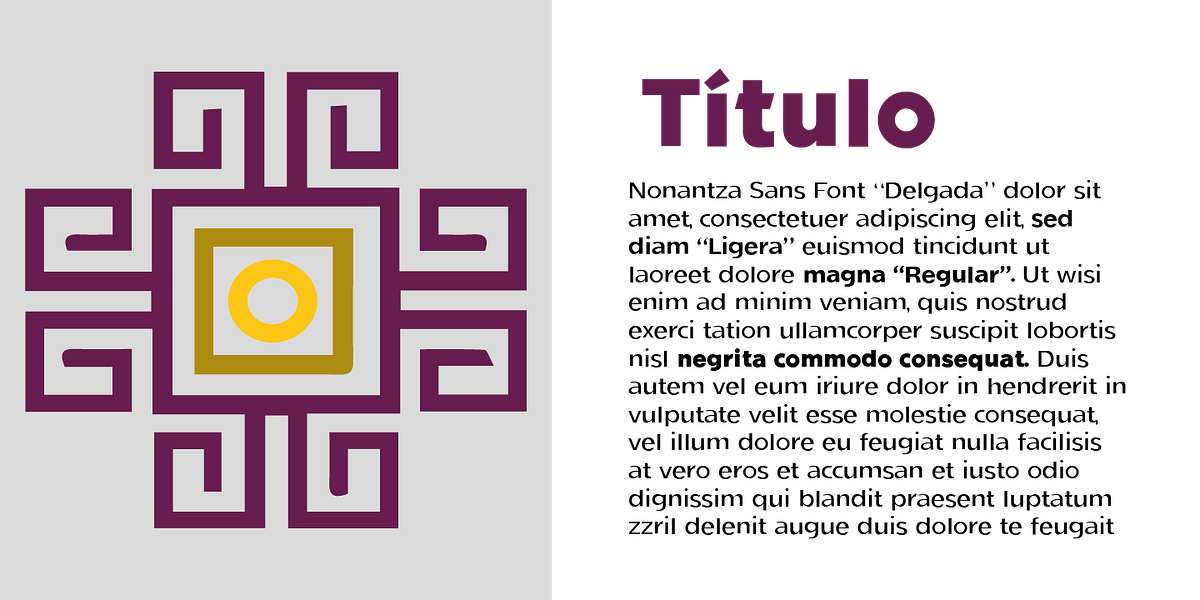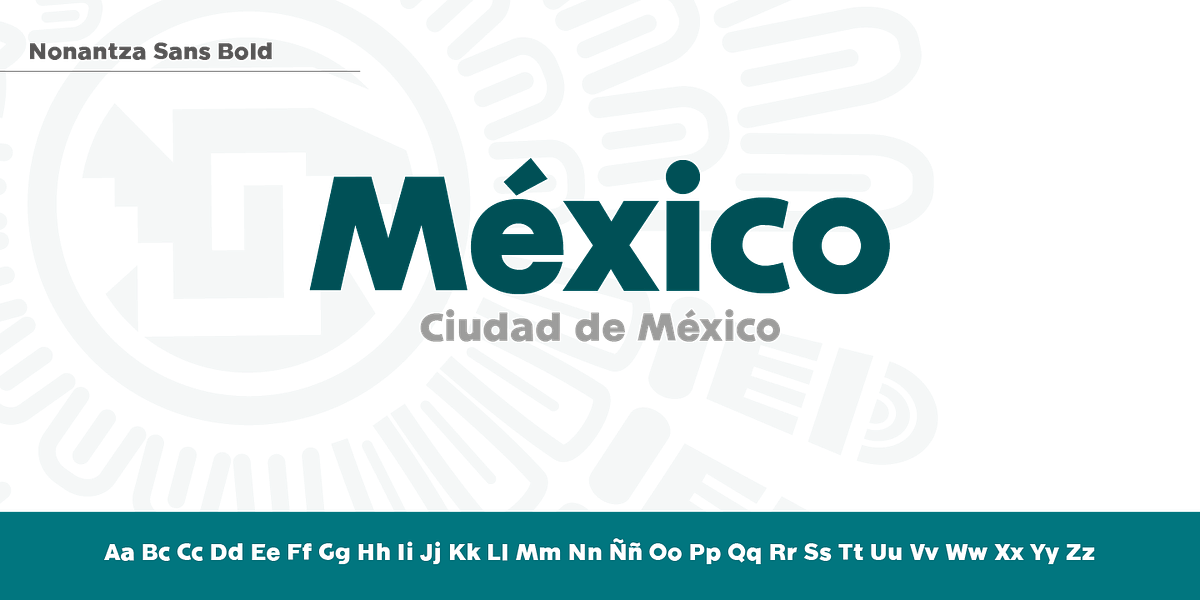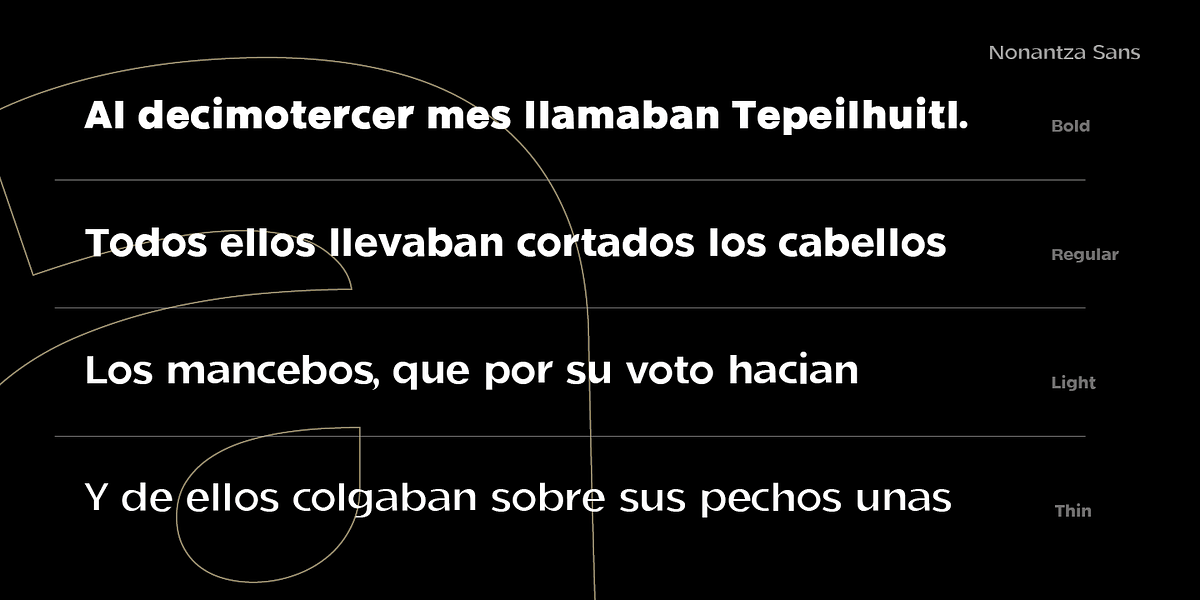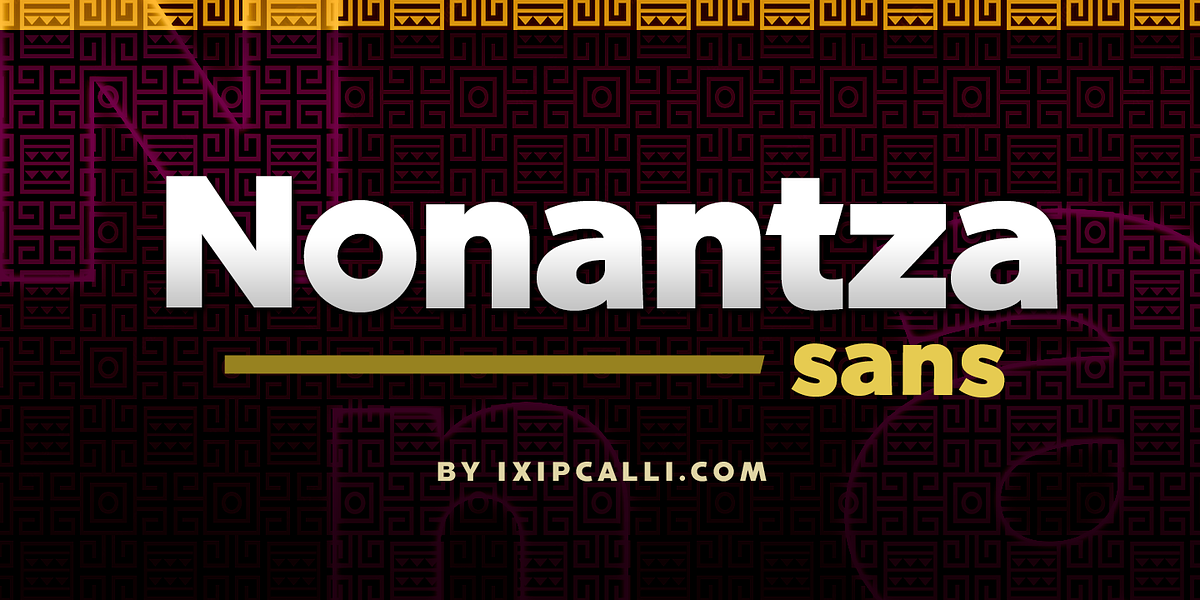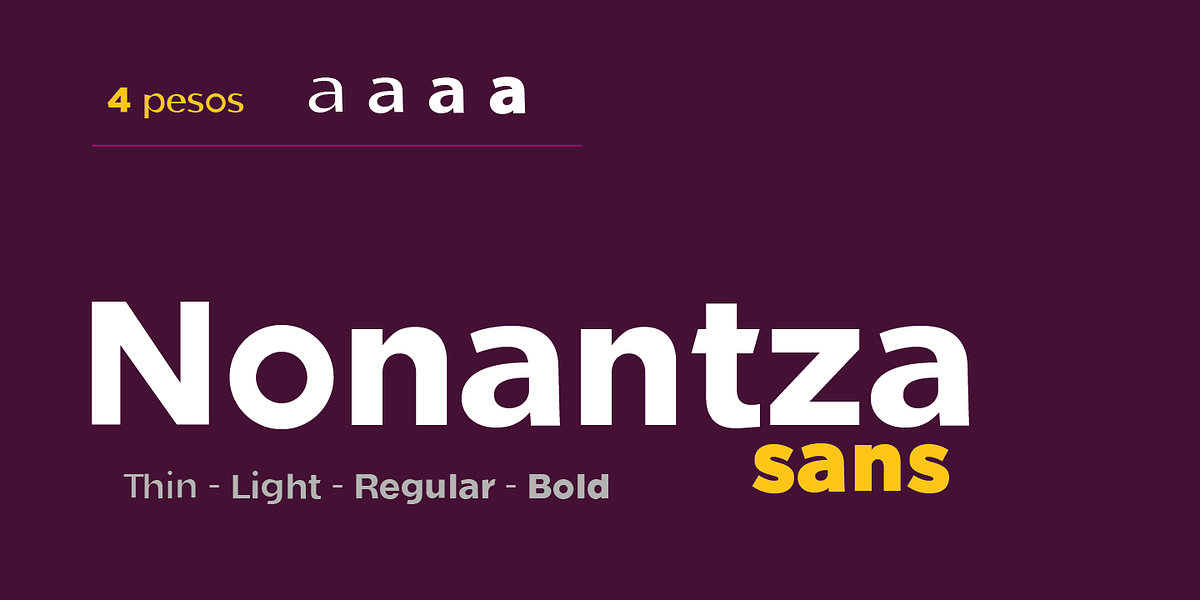
Nonantza Sans
Nonantza Sans is a versatile modern sans-serif typeface suitable for a range of applications from graphic design projects to advertising and signage. It offers an extended character set with OpenType support for European languages and comes in four weights.